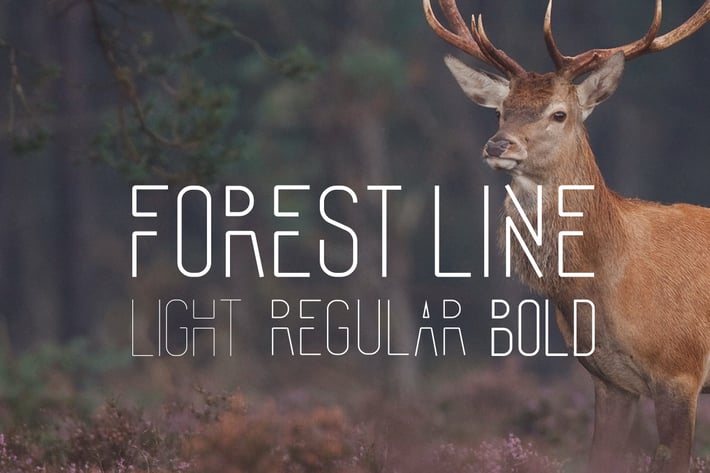
Forest Line Font Condensed
Forest Line Creative Linear True Type Web Font in Three versions: Light, Regular, Bold
This is Condensed version of our Forest Line Extended font.
Trendy, Creative, Usefull.